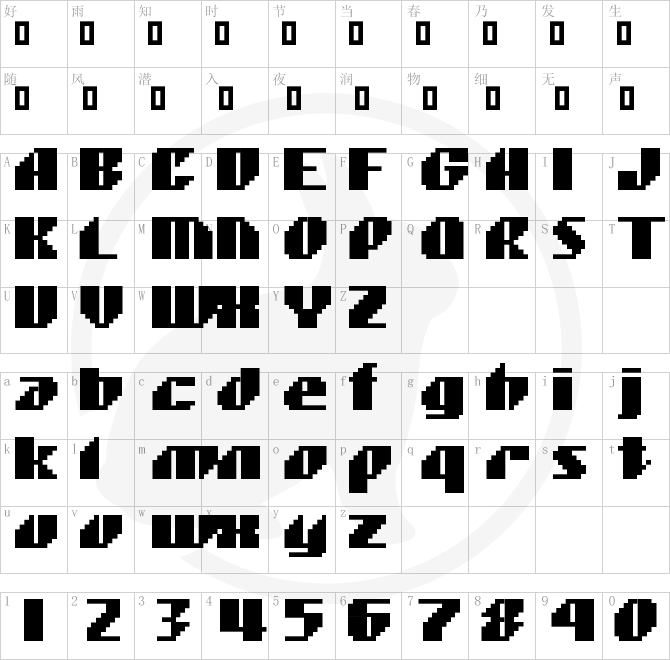
- Font Name:00Heuristix
00HeuristixBold.ttf is a very beautiful artistic font, 00HeuristixBold.ttf is widely used in the design and printing of various books and pictures,00HeuristixBold.ttf has a strong visual impact,00HeuristixBold.ttf is a commonly used font in newspapers, magazines and books, and is used in posters, e-commerce Poster design, store design, logo design, font design and other fields.00HeuristixBold.